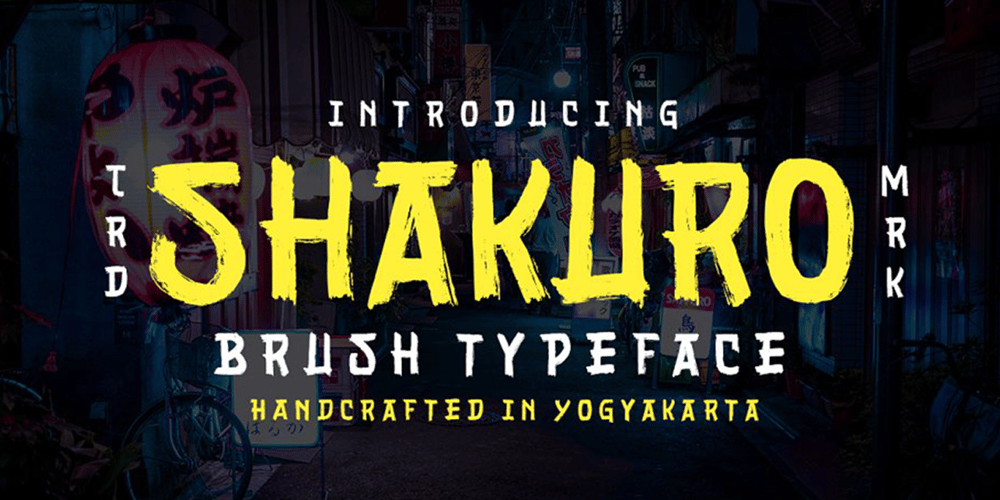
Shakuro Brush Font Family was designed by Hendry Juanda and published by Letterhend. Shakuro Brush contains 1 styles and family package options. Introducing, Shakuro. As you can see, this brush typeface has unique letterforms inspired by japanese kanji typography. Very suitable to use for headlines, titles, logos or anything especially related to Japanese or asian themes.Features : uppercase & lowercase (alternates) numbers and punctuation multilingual PUA encoded We highly recommend using a program that supports OpenType features and Glyphs panels like many of Adobe apps and Corel Draw, so you can see and access all Glyph variations.Email us to letterhend@gmail.com if you need something! Happy Designing!